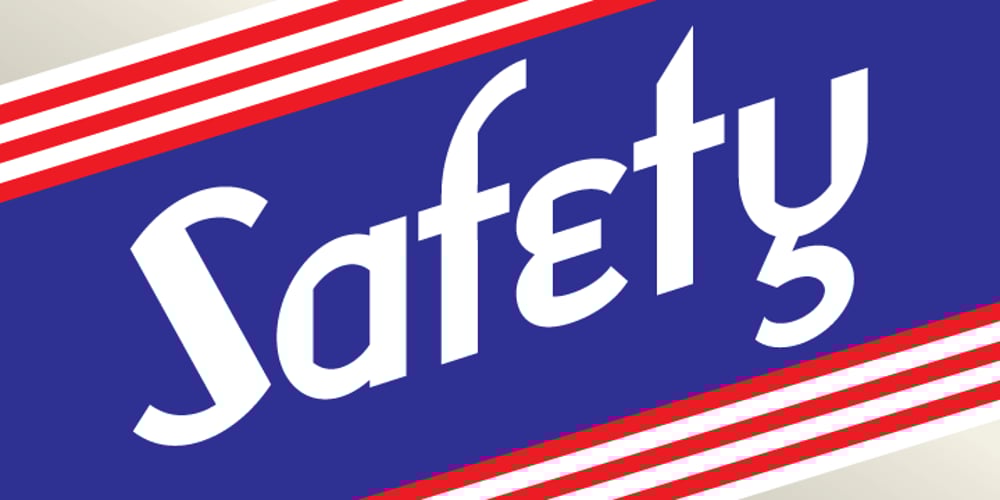
Safety
Safety font
Safety Font Family was designed by Daniel Pelavin and published by Pelavin Fonts. Safety contains 1 styles and family package options. Safety is influenced by works from the Machine Age which had its greatest period between the two world wars and celebrated the triumphs of the late Industrial Age including mass production, skyscrapers, radio & phonographs, hydroelectric power and streamlined styling in industrial design. It is based on an Art Deco display style lettering known most popularly as Broadway or Manhattan but, having existed in a multitude of incarnations from showcard lettering to neon signs for a century.